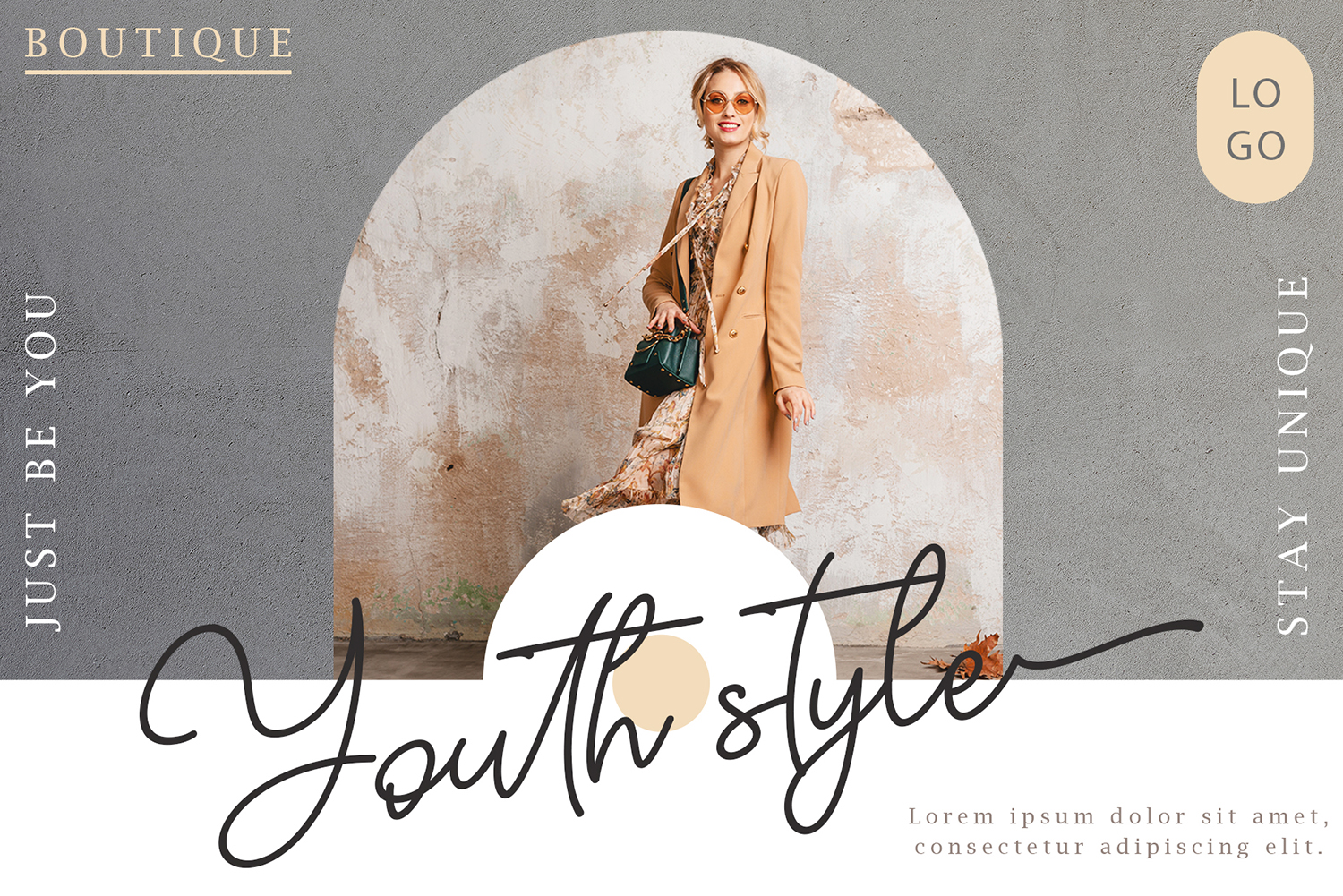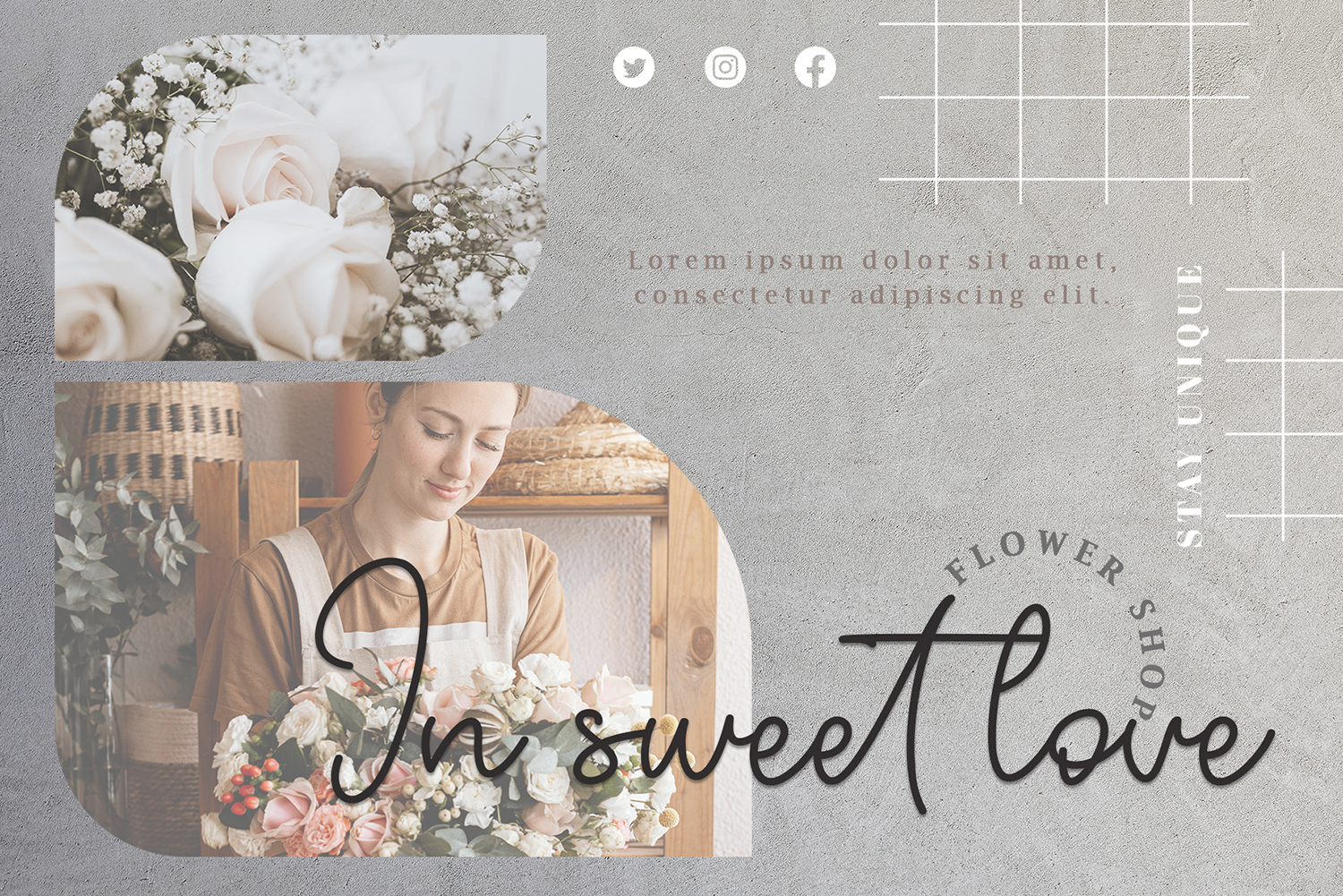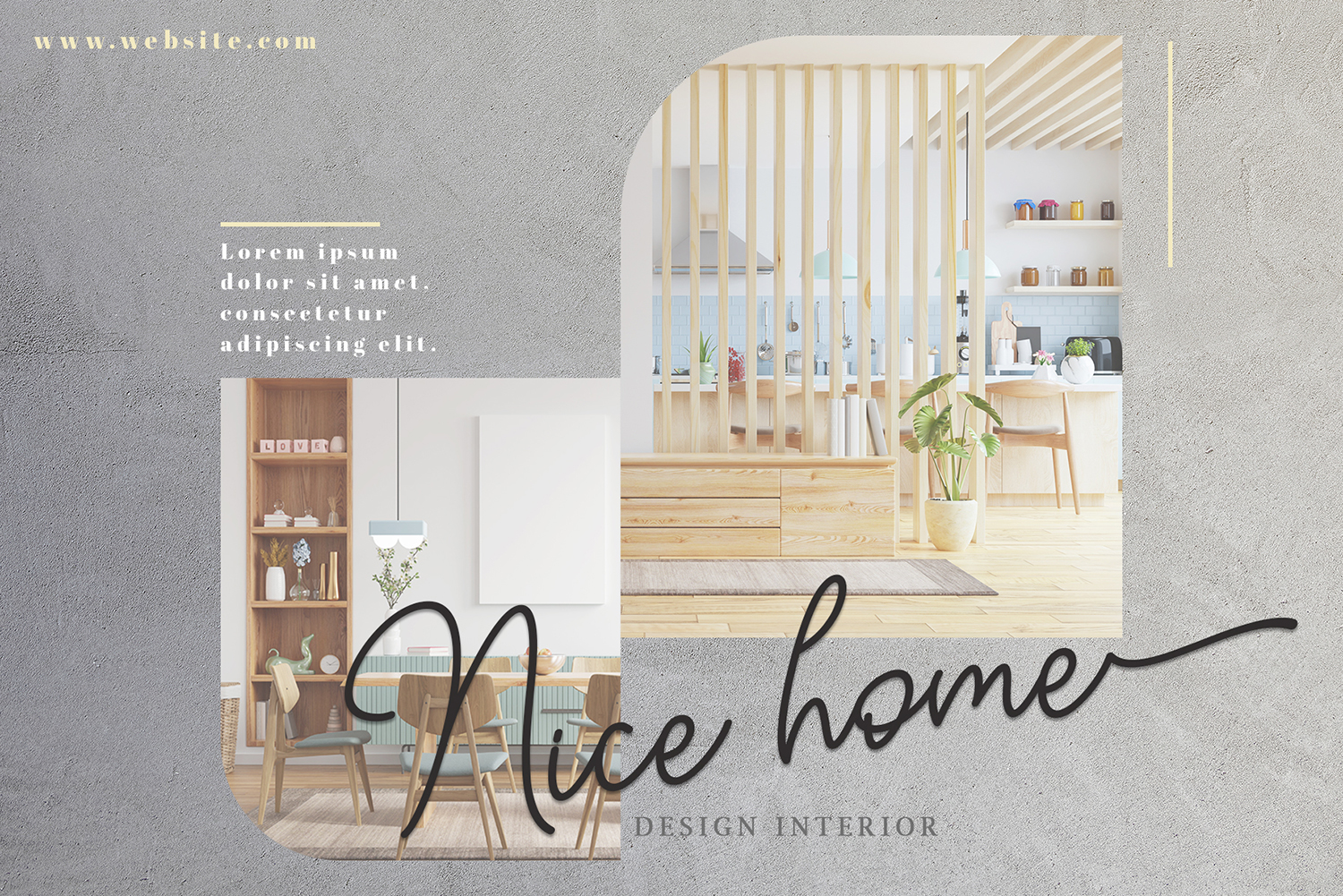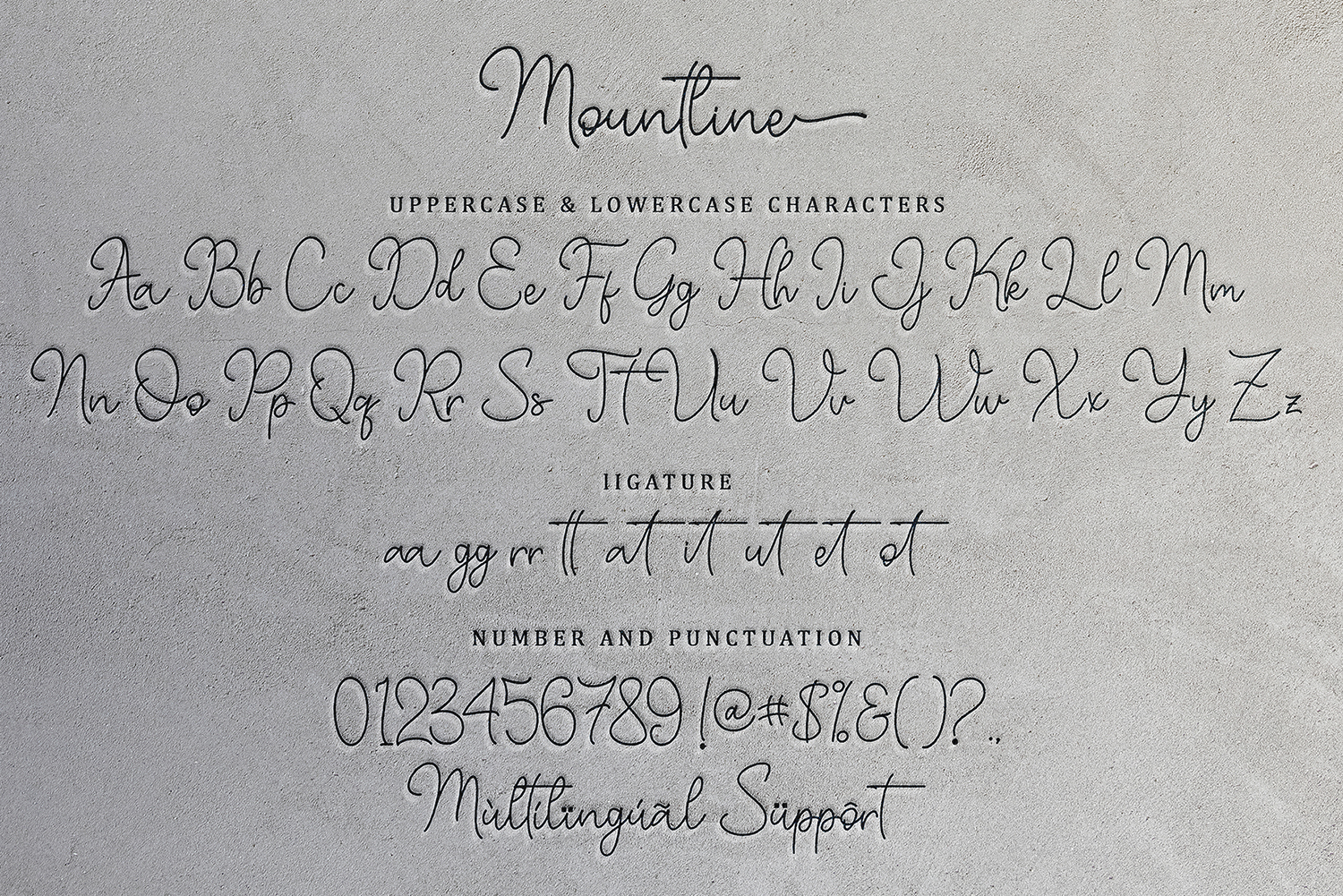
Mountline Free Font
Introducing Mountline Free Font, a refined and elegant handwritten font. With its distinctive and well-balanced letters, this font stands out as a true masterpiece. This free typeface was designed by a talentedΒ Alif Ryan Zulfikar. If you like it don’t forget to check out the full version.